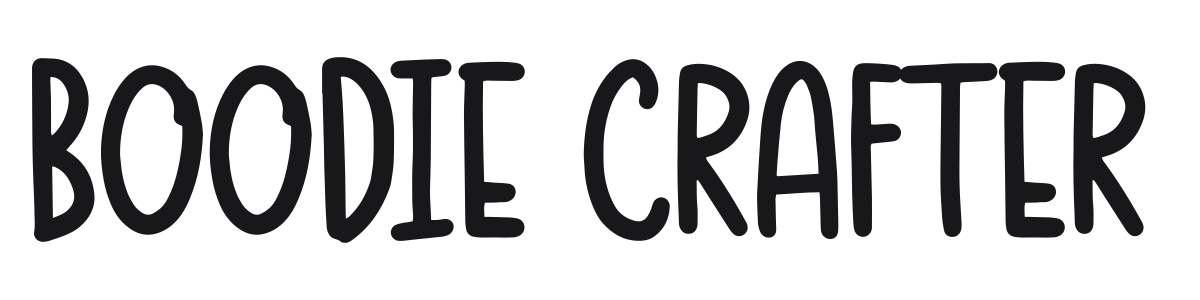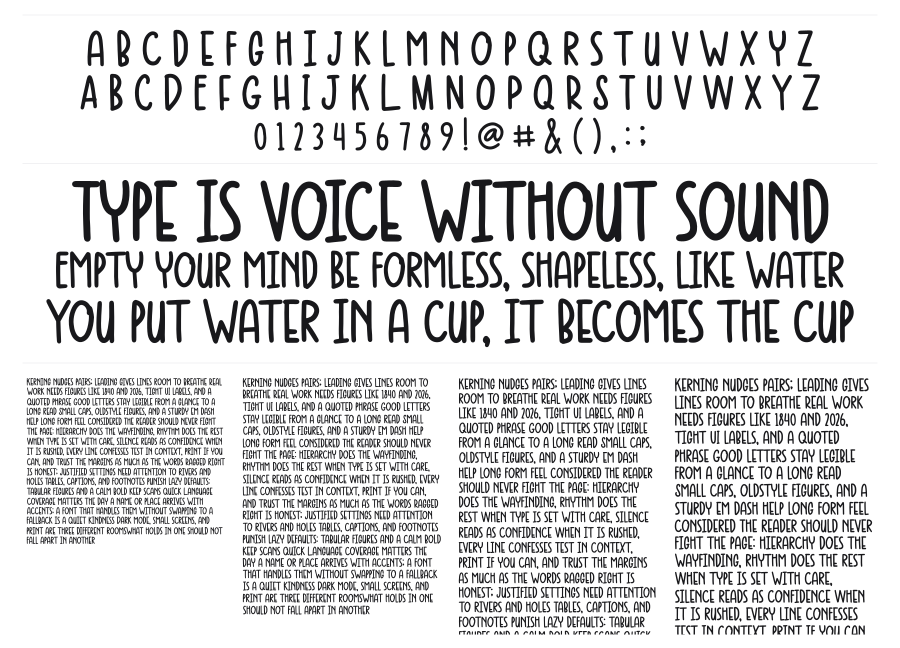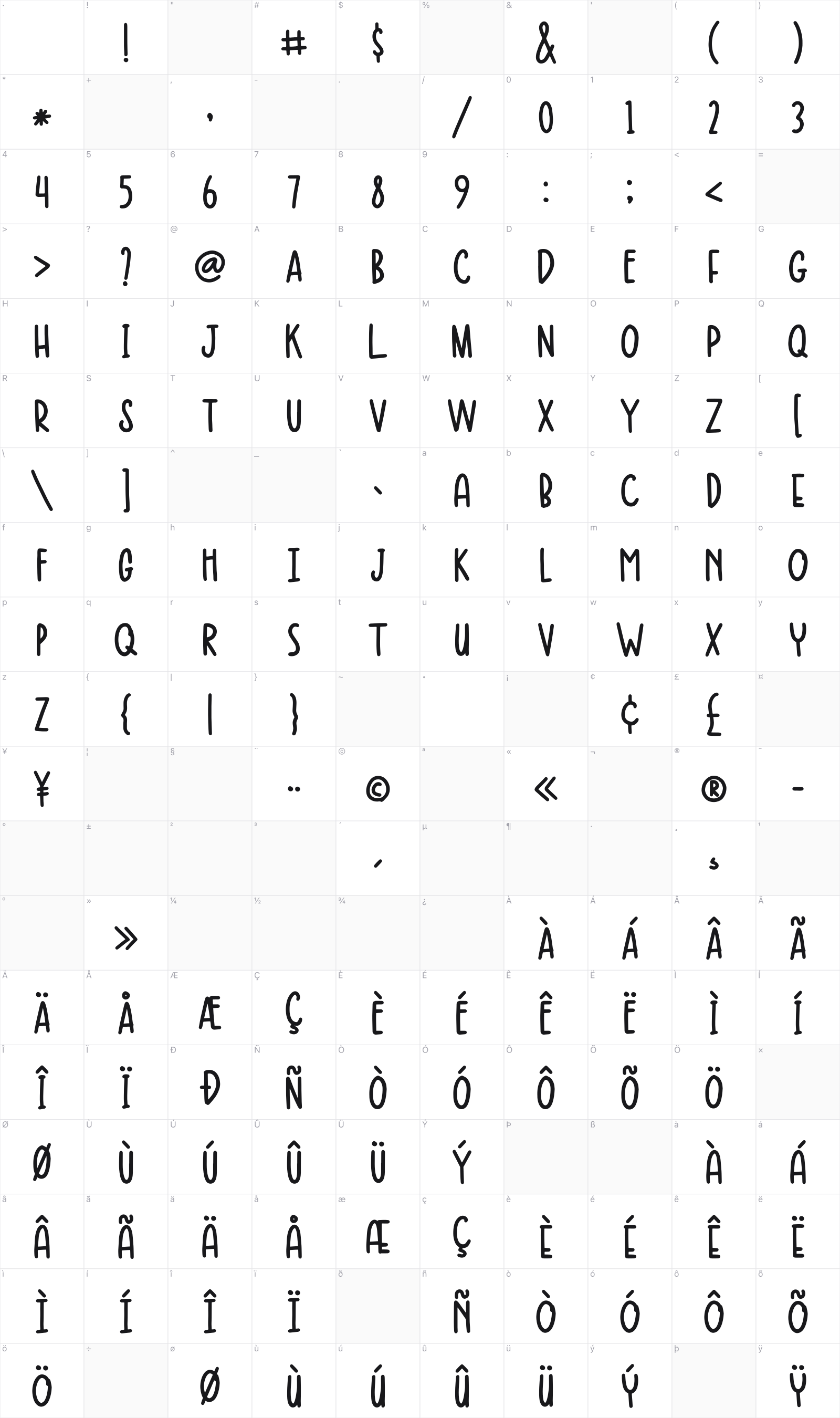
Boodie Crafter
Boodie Crafter is a bold, hand-drawn rounded sans with a warm, crafty personality baked into every wobbly stroke. The slight irregularities in the letterforms keep it feeling genuinely handmade rather than mechanically polished. It works well for children's content, artisan branding, food packaging, or anything that needs a friendly, approachable voice.